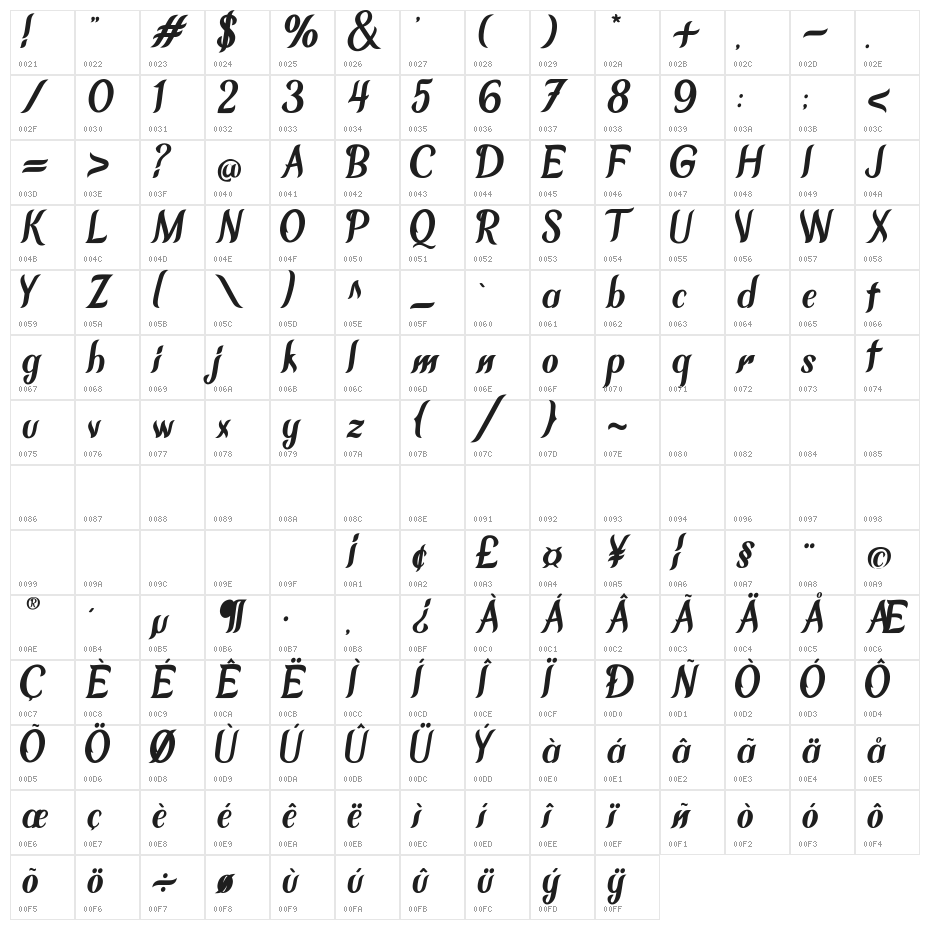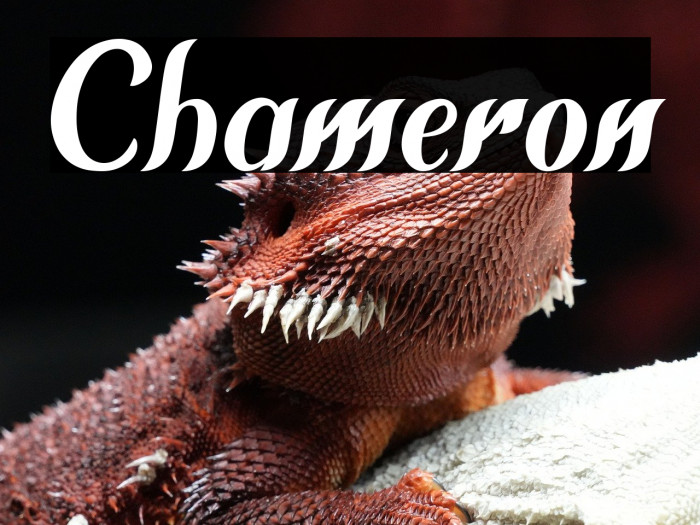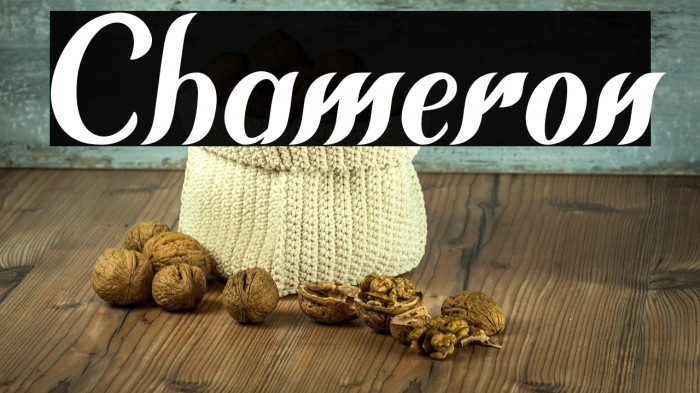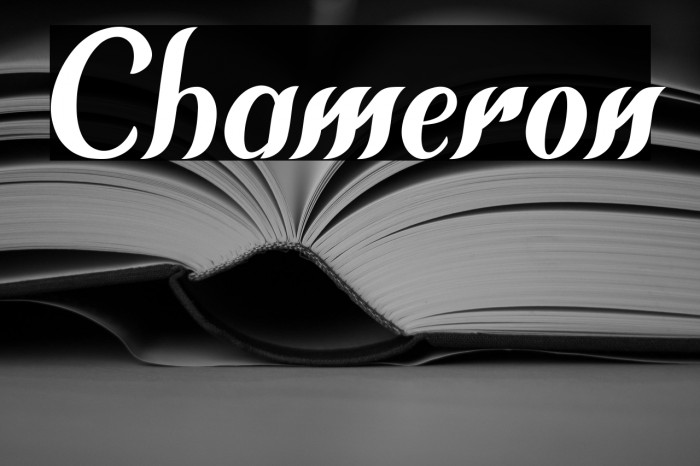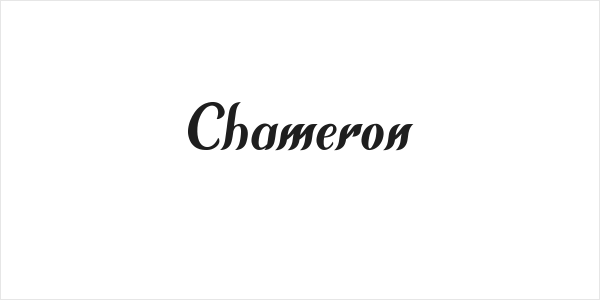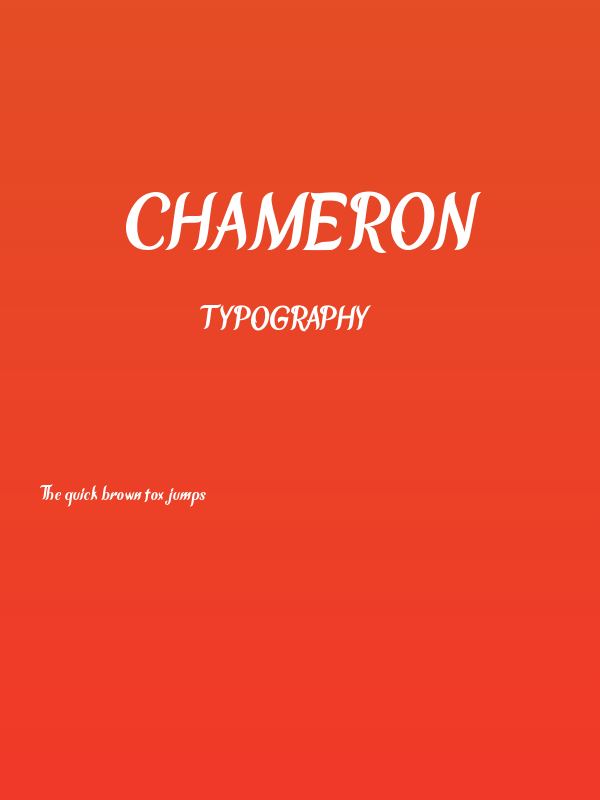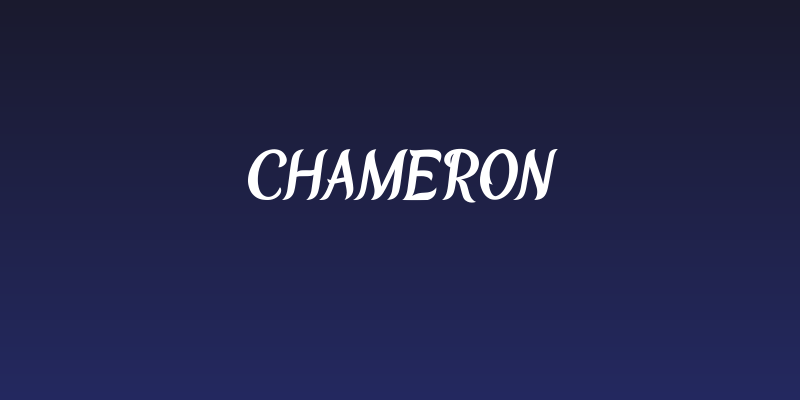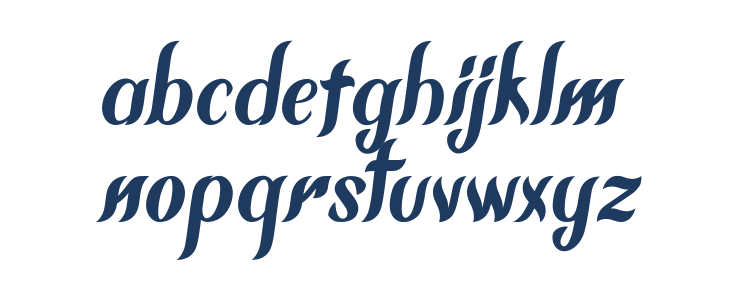
Chameron Font
Chameron Description
This font features a dynamic and flowing script style, characterized by its elegant curves and smooth transitions between letters. The uppercase letters are bold and slightly slanted, giving a sense of movement and sophistication. The lowercase letters maintain a consistent style, with some characters like 'g' and 'y' having distinctive loops that add to the font's charm. The numerals are well-proportioned and align seamlessly with the overall design. Special characters are crafted with the same attention to detail, ensuring they complement the alphabetic characters. This font exudes a sense of elegance and is suitable for projects that require a touch of class and flair.
Overall StyleElegant